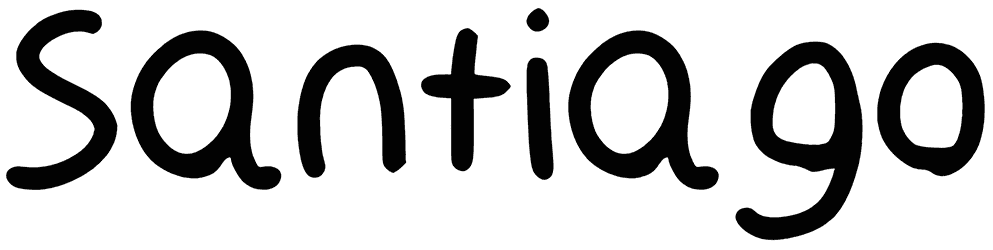
Santiago Font
Cute and realistic handwritten fonts like this one have a soft and ravishing vibe, and when they are added to your text, the final draft will be friendly. The Santiago font, with its catchy visuals, can do it even without numbers and most punctuation marks. Set this script font on your birthday party Instagram story and enjoy the outcome.